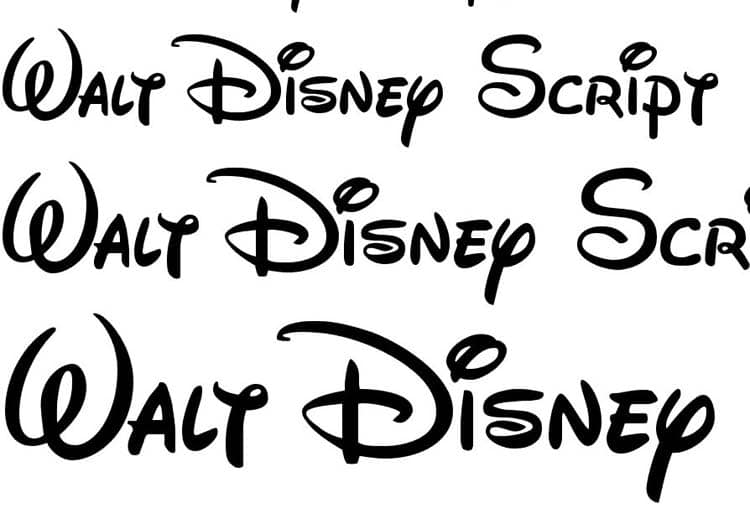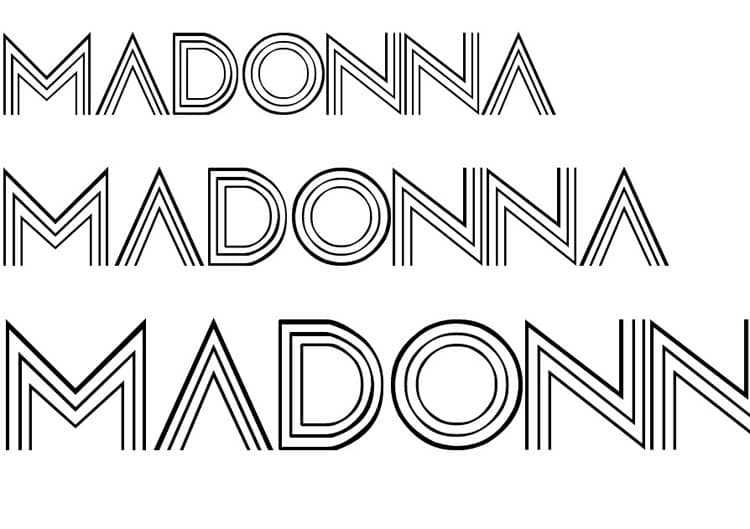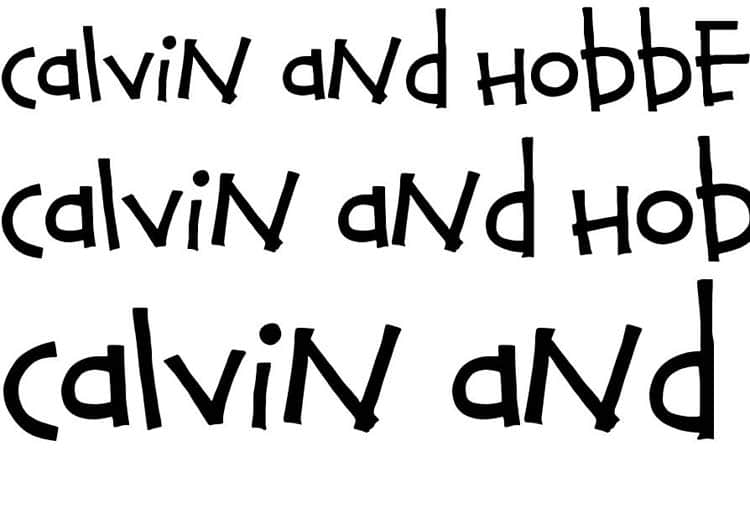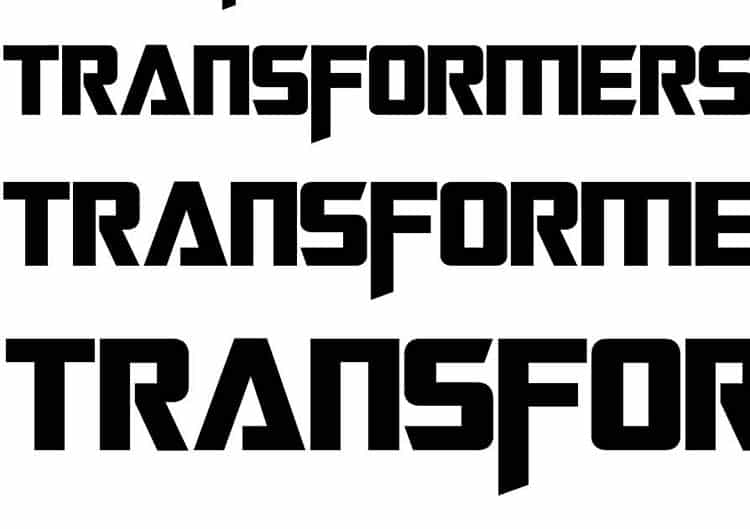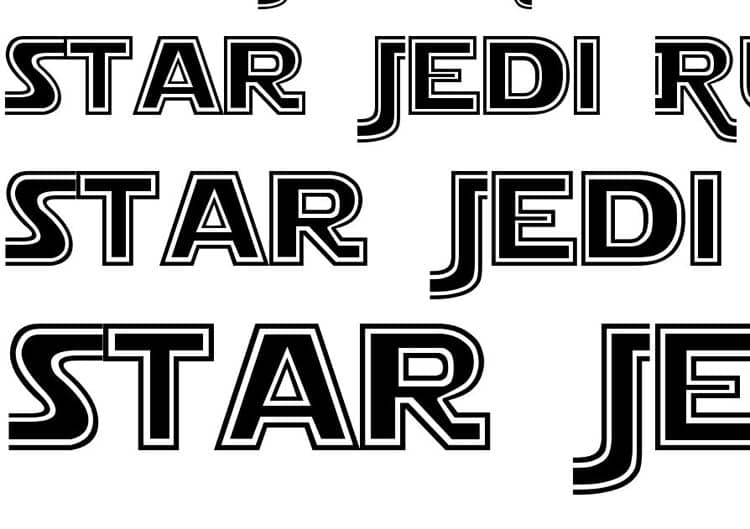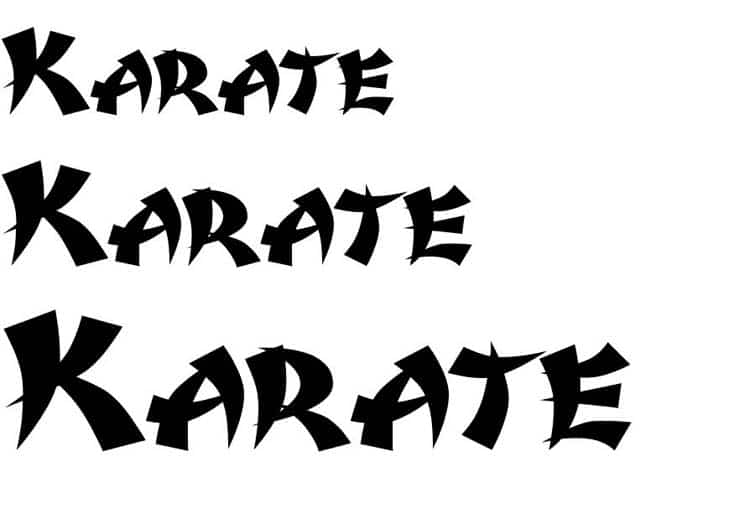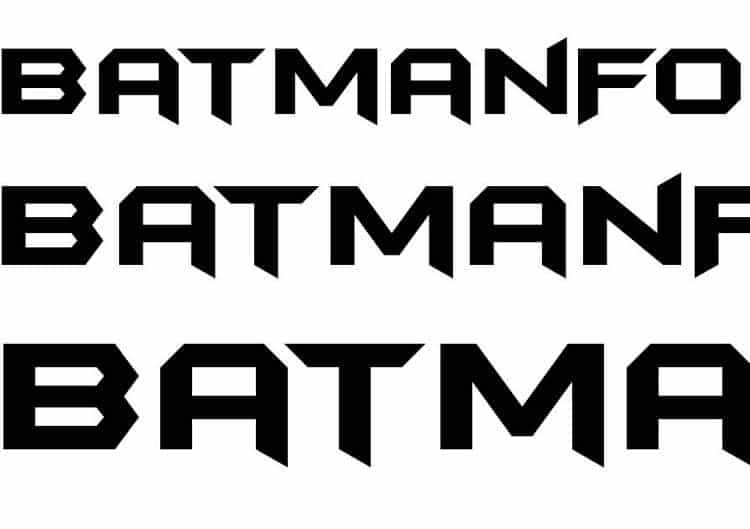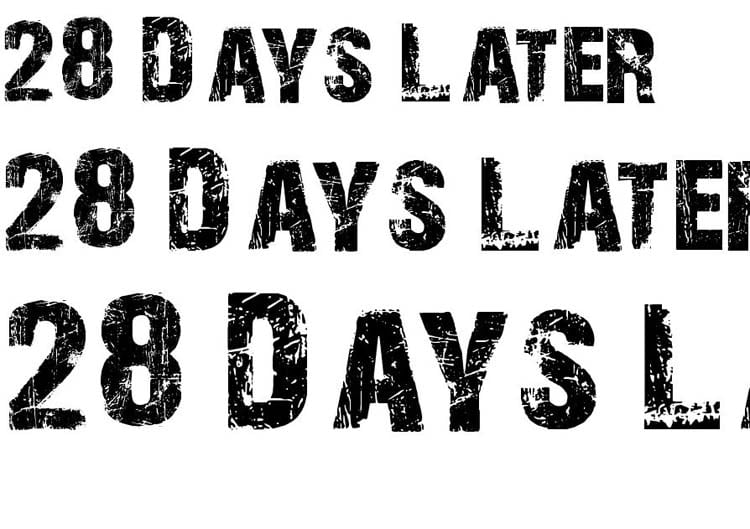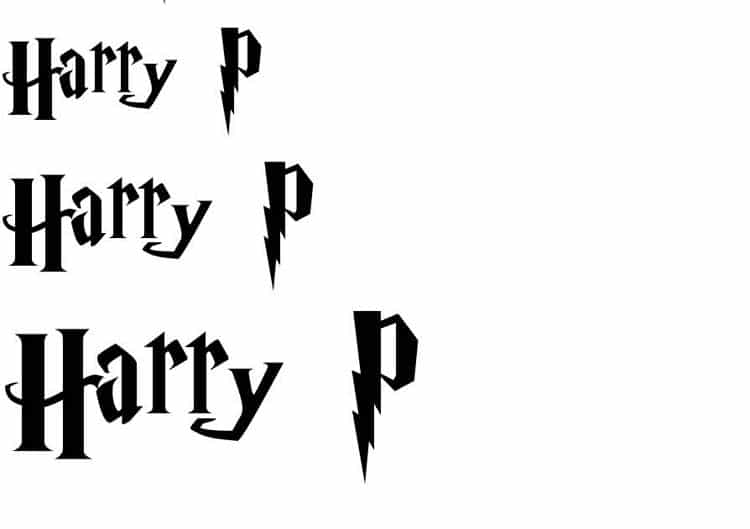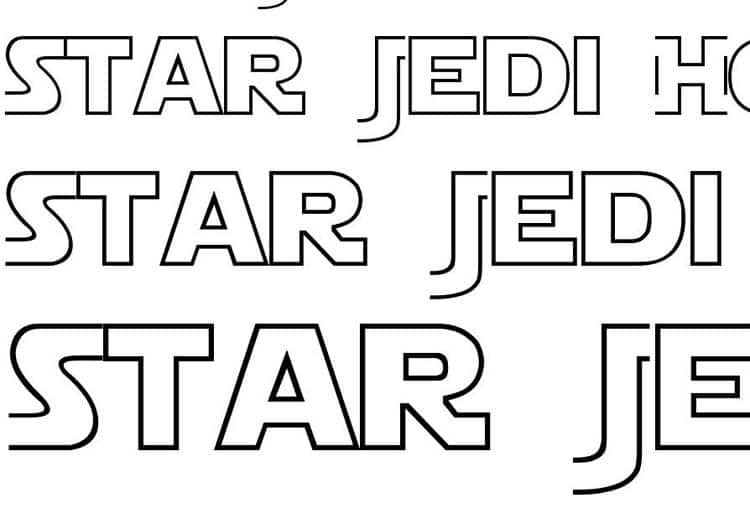
Have you ever found yourself staring at a font in a movie poster, especially the one used in the title, and perhaps in the headings as well in a smaller size, and attempted to decipher what typeface style or category is being used?
Since famous fonts tend to be custom fonts for the most part, if not always, the typeface category, beyond serif and sans-serif, may not be obvious, and for some famous fonts —
Designers probably do this out of habit. As a designer, it’s probably a habit with you as well. Professionals like to categorize things, even when it means inventing new categories. Famous fonts is one such category, but is not much better than “Misc.” when it comes to describing the typefaces contained therein. As you can see below, the only common denominator is familiarity, and perhaps to some degree, readability.
Since there are hundreds of free fonts on the Internet to choose among, picking one for your logo or header can be a challenge, and as you search, you can sometimes find yourself a victim of information overload.
Nothing clinches a concept like a perfect font. Various brands, movies, and entertainment enterprises utilize custom typography. The web has gone to great lengths to capture the art in these fonts. While you certainly shouldn’t attempt to infringe upon someone else’s logo, there’s absolutely no problem in using the individual letters, which are free for non-commercial use.
You may or may not be able to decipher exactly what there is about these fonts that resulted in their use for the various movies or brands. Each one was obviously selected for a reason.
Don’t be surprised if you have some difficulty on separating the font from the brand. Just bear in mind how powerful the right font can have on a brand, and don’t be afraid to select a “famous” one.
Examples of Famous Fonts
- The first font in this selection, Walt Disney, is arguably the most famous one of all. It has been with us for a good, long time. It is highly readable. It may be a take-off on Disney’s personal signature, but is certainly defines the Disney brand and its appeal to the young and the young at heart.
- Canon is an excellent choice for titles and headings. This font is an example of upper case and lower case being identical, but with a twist. Both have lower case characteristics, as opposed to some fonts which use small caps as the lower case letters.
- Rolling Rocker could best be categories as bold, serif, and as such it has many uses
- Calvin and Hobbes? A good choice for a kids site (even though more than a few grownups are Calvin and Hobbes fans).
- Star Jedi Hollow, Transformer Movie, and Dodger all fit nicely into the modern and futuristic font categories.
- Karate is an obvious candidate for anything Japanese, whether is a travel poster, a sushi bar’s website, or a martial arts advertisement.
Walt Disney
28 Days Later
Star Jedi Hollow1
Canon
Rolling Rocker
TOONEY NOODLE
Blade Runner Movie Font
Madonna
Calvin and Hobbes Normal
Transformers Movie
Star Jedi Outline
Karate
BatmanForeverAlternative
How to Choose a Font
How do you choose the clothes you wear? The analogy is an apt one. Whether you’re in a specialty shop or a box store, you’ll typically find yourself having a selection of hundreds of styles to choose from. If you are a believer in the “clothes make the man (or woman)’ philosophy, you choose with care. Sometimes your choice is automatic, sometimes it can take a while to make your selection. It’s the same way with fonts.
Just as how you are dressed can lead people to make assumptions about the kind of person you are, your choice of fonts can influence what people will think of your business, and the products or services it offers. Maybe you’re somewhat of a free spirit, and you don’t particularly care what people think of you because of how you are dressed, or maybe you purposely try to mislead them.
It doesn’t work that way with fonts. If the fonts you choose send the wrong message throughout the web, your conversion rates could plummet. On the other hand, it the font(s) you select reinforce your brand, and your brand is a good one, the fonts themselves can serve as calls to action.
You don’t attend a Board meeting in a bathing suit. Neither should your corporate website use either the Calvin and Hobbes or Tooney Noodle famous font in its banner (unless of course you’re in the comic book business).